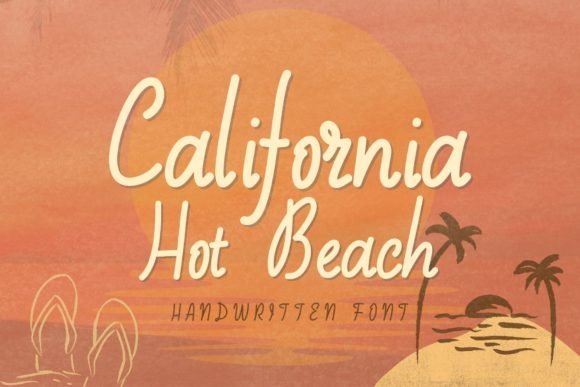
Discover the Endless Possibilities of California Hot Beach Font
Who hasn’t been inspired by the sun-kissed beaches and laid-back vibes of California? For designers, it’s the perfect moment to capture the essence of a carefree day by the ocean and bring it to life through their work. As you sit by the beach, scribbling down ideas in your notebook, the sound of the waves crashing against the shore sparks a creative moment that can’t be replicated. It’s in these moments that we find the spark that sets our imagination ablaze.
Enter the California Hot Beach Font, a sweet and friendly handwritten font that embodies the spirit of California’s sun-soaked beaches. This versatile font is designed to bring your designs to life with its natural and unique style. Whether you’re creating a beach-inspired brochure, a summer-themed website, or a fun social media post, the California Hot Beach Font is the perfect addition to your design arsenal.
- Unique Characteristics: The California Hot Beach Font features a distressed, vintage aesthetic with a warm, sun-kissed feel, making it ideal for beach-themed designs, travel brochures, and summer campaigns.
California Hot Beach Font Review
Overall, I think the California Hot Beach Font is a solid addition to any designer’s toolkit. Here are some things that work well:
- ✨ Unique blend of classic and modern elements: The font combines the relaxed vibe of a beachy font with some modern twists, making it a great choice for projects that need a bit of personality.
- ✨ Wide range of applications: From logos to signage to digital designs, the California Hot Beach Font is versatile and can be used in a variety of contexts.
- ✨ High-quality design: The font is well-designed, with crisp lines and a clear, easy-to-read structure.
- ⚠️ Limited character set: The font may not have as many characters as some other fonts, which could be a problem for projects that require a wide range of special characters.
- ⚠️ Not ideal for small text: While the font is great for larger text, it may not be the best choice for smaller text, where the letters can become difficult to read.
Overall, I’d say the California Hot Beach Font is a great choice for designers who want a unique, versatile font that’s perfect for a wide range of projects. With a bit of caution and planning, it can be a valuable addition to any designer’s toolkit.
Use California Hot Beach Font to create eye-catching headings and titles.
Pair it with bold colors to make your designs stand out.
Experiment with different font sizes and styles to add visual interest.
Use California Hot Beach Font for beach-themed designs, such as invitations, posters, and social media graphics.
Apply it to fashion designs, such as clothing labels and accessories.
Use it for summer-themed events, such as pool parties and BBQs.